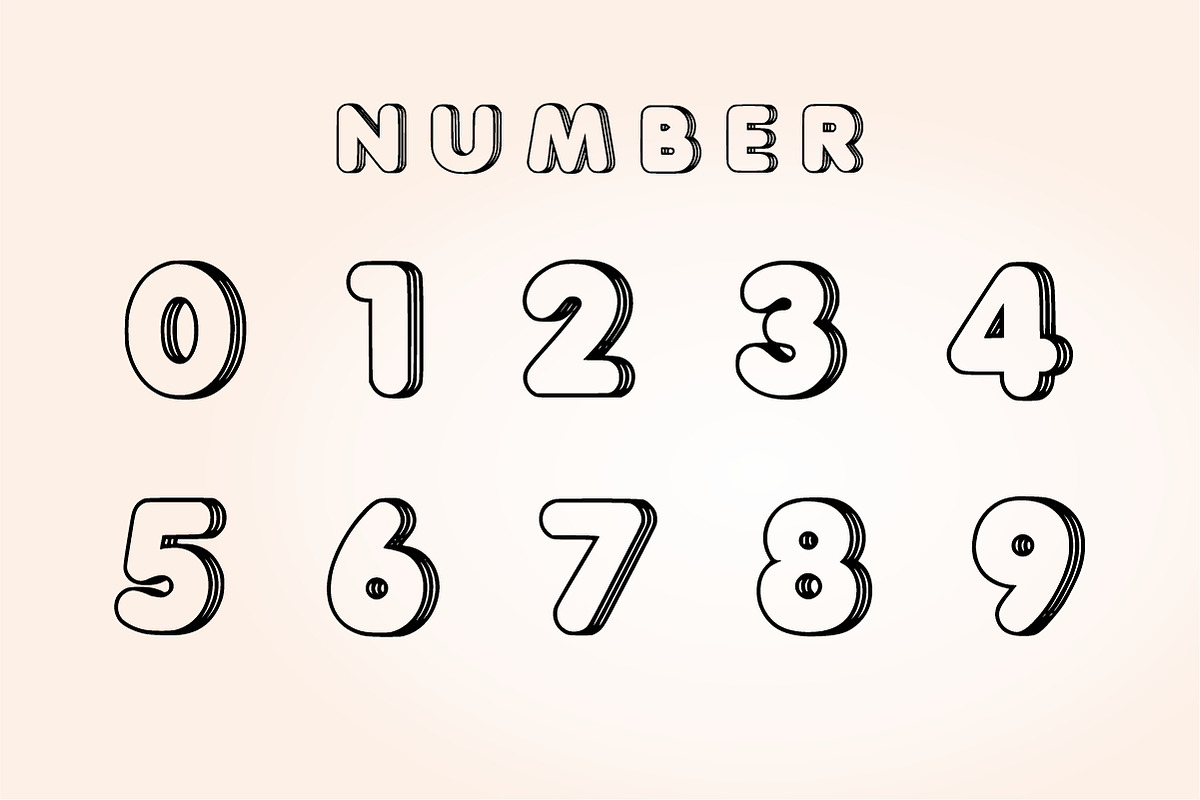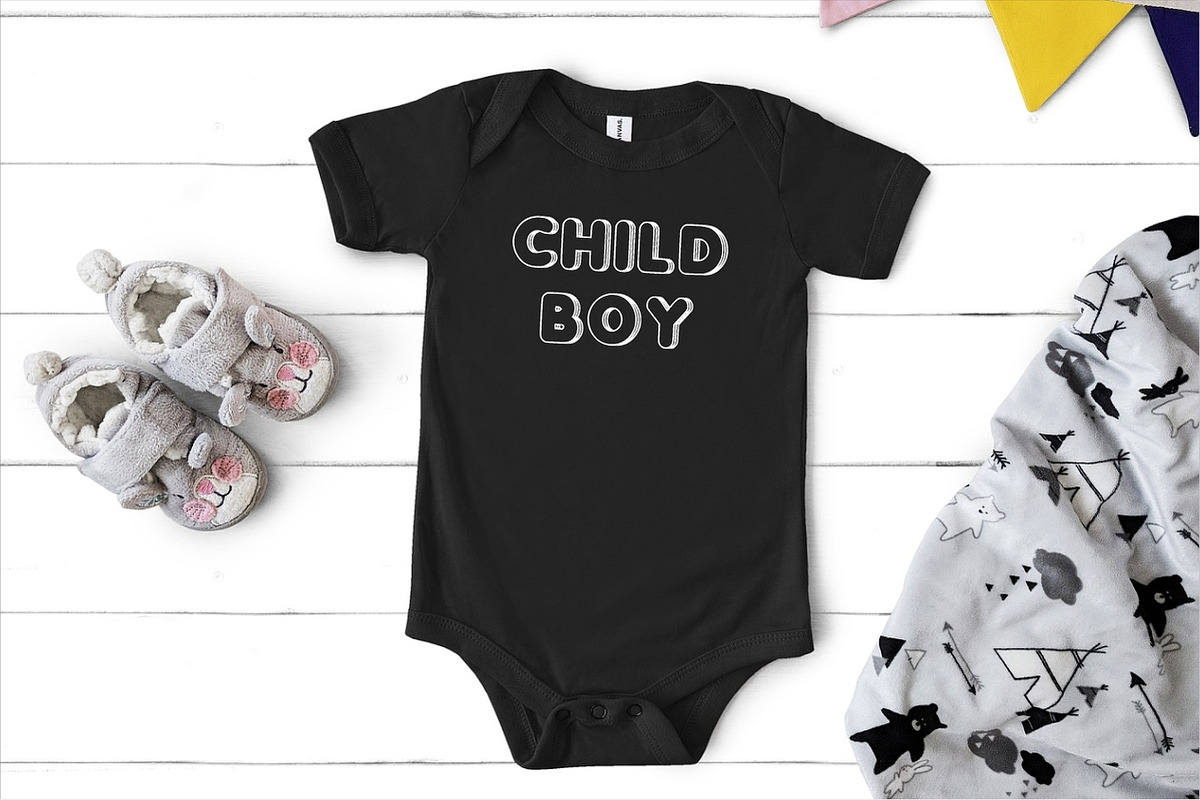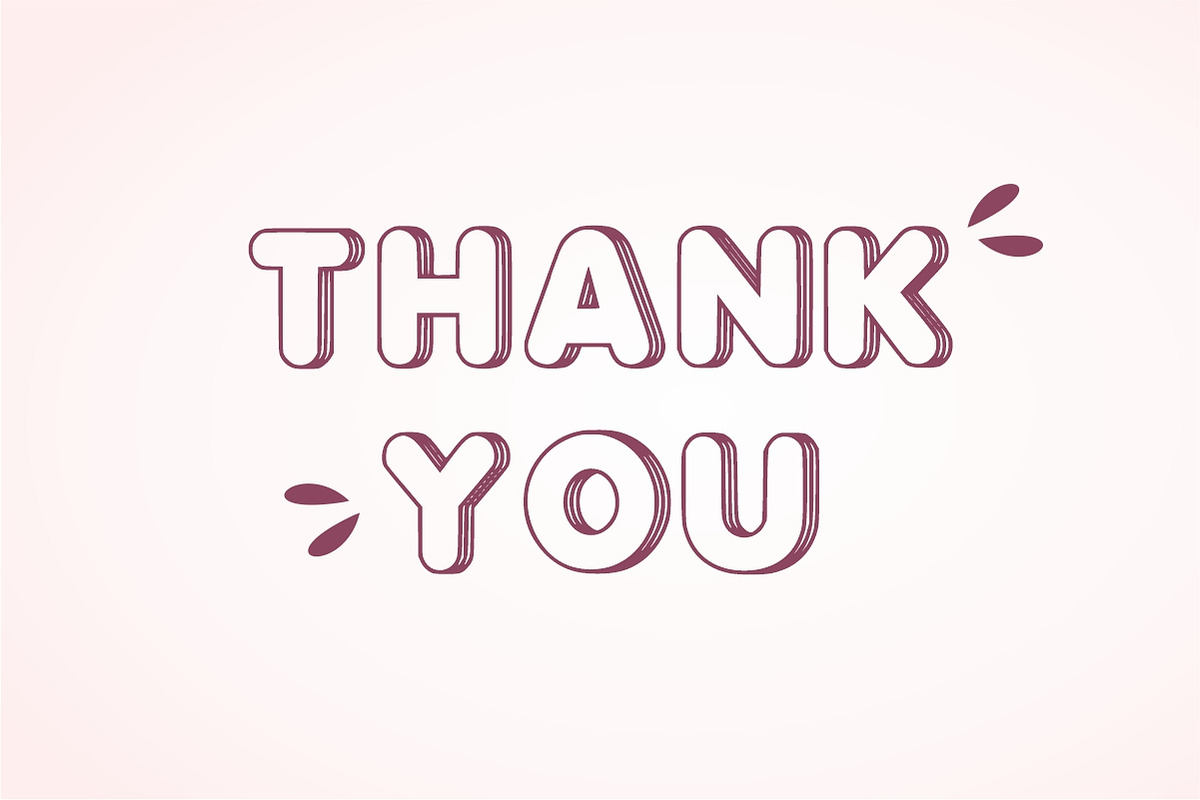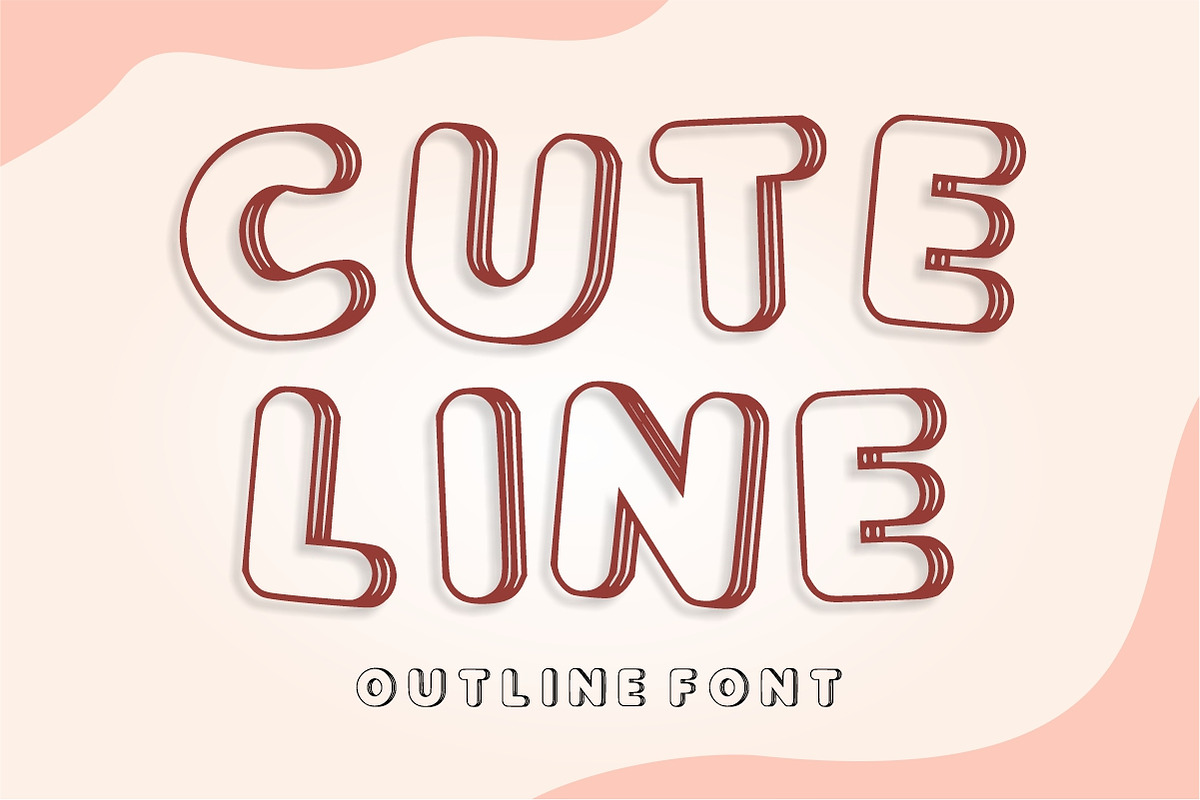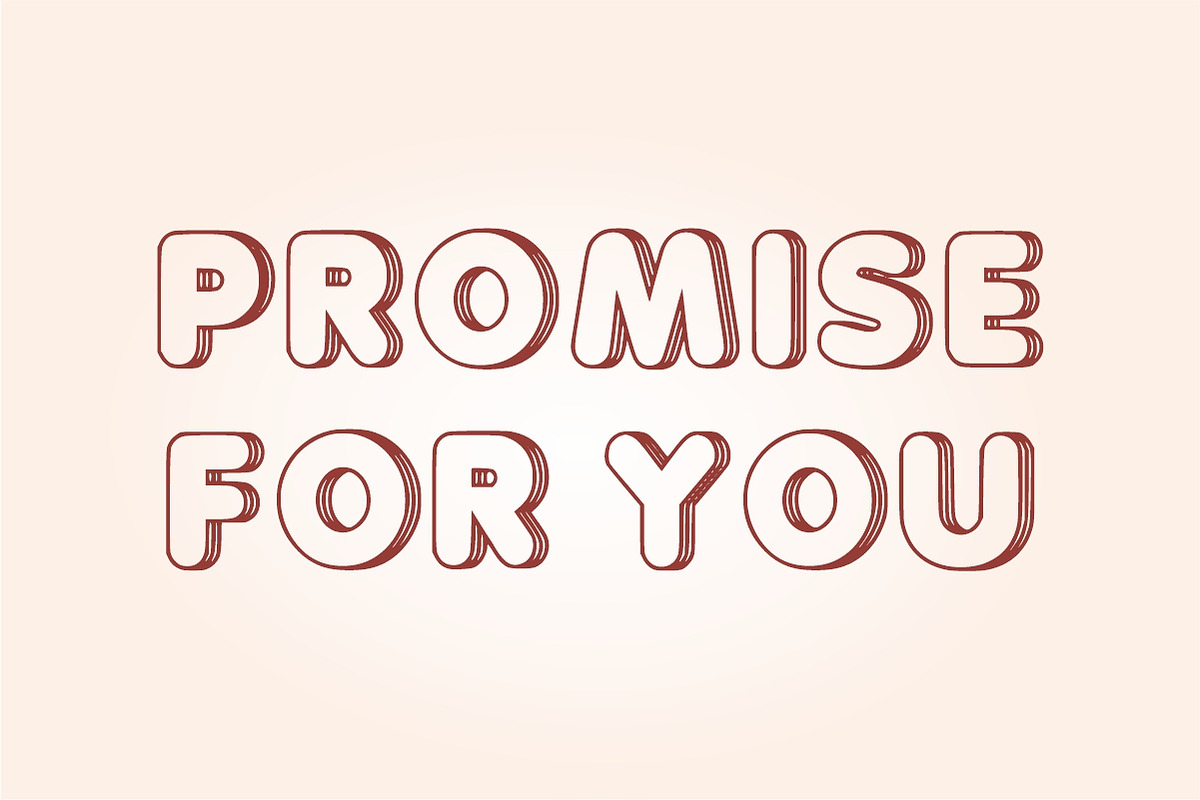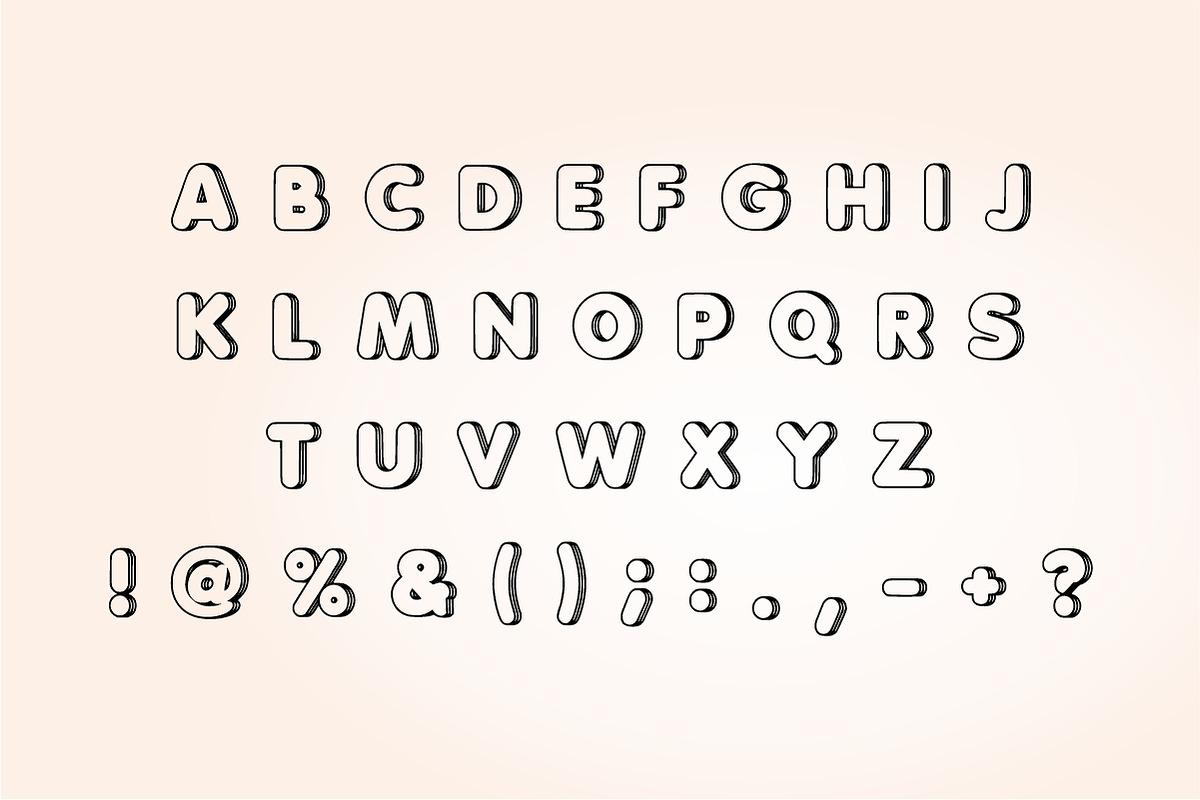
Cute Line
Cuteline is a cute and cool display font. Whatever the topic, this font will be a great asset to your font library, as it has the potential to enhance any creation.